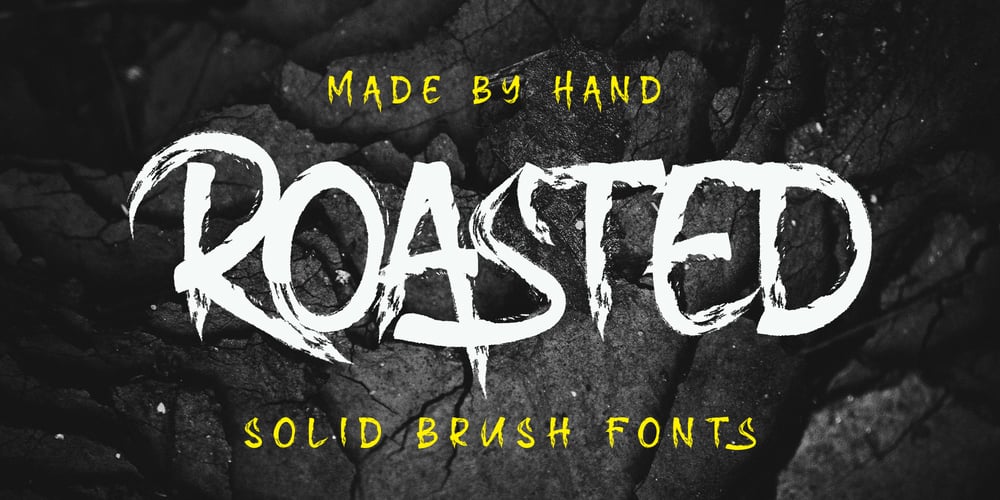
Roasted Font Family was designed by Stefie Justprince and published by Crumphand. Roasted contains 2 styles and family package options. Hello, Introducing the new hand brush fonts Roasted.Roasted is truly hand made by 100%.This fonts have a Stylistic Set.You can access the Stylistic Set with lowercase too.Still have a good readibility and strong font.What’s Included Inside The Fonts ? Uppercase Lowercase Numerals Symbols European Multilingual Stylistic Set 1 Stylistic Set 2 Thank You, Regards!